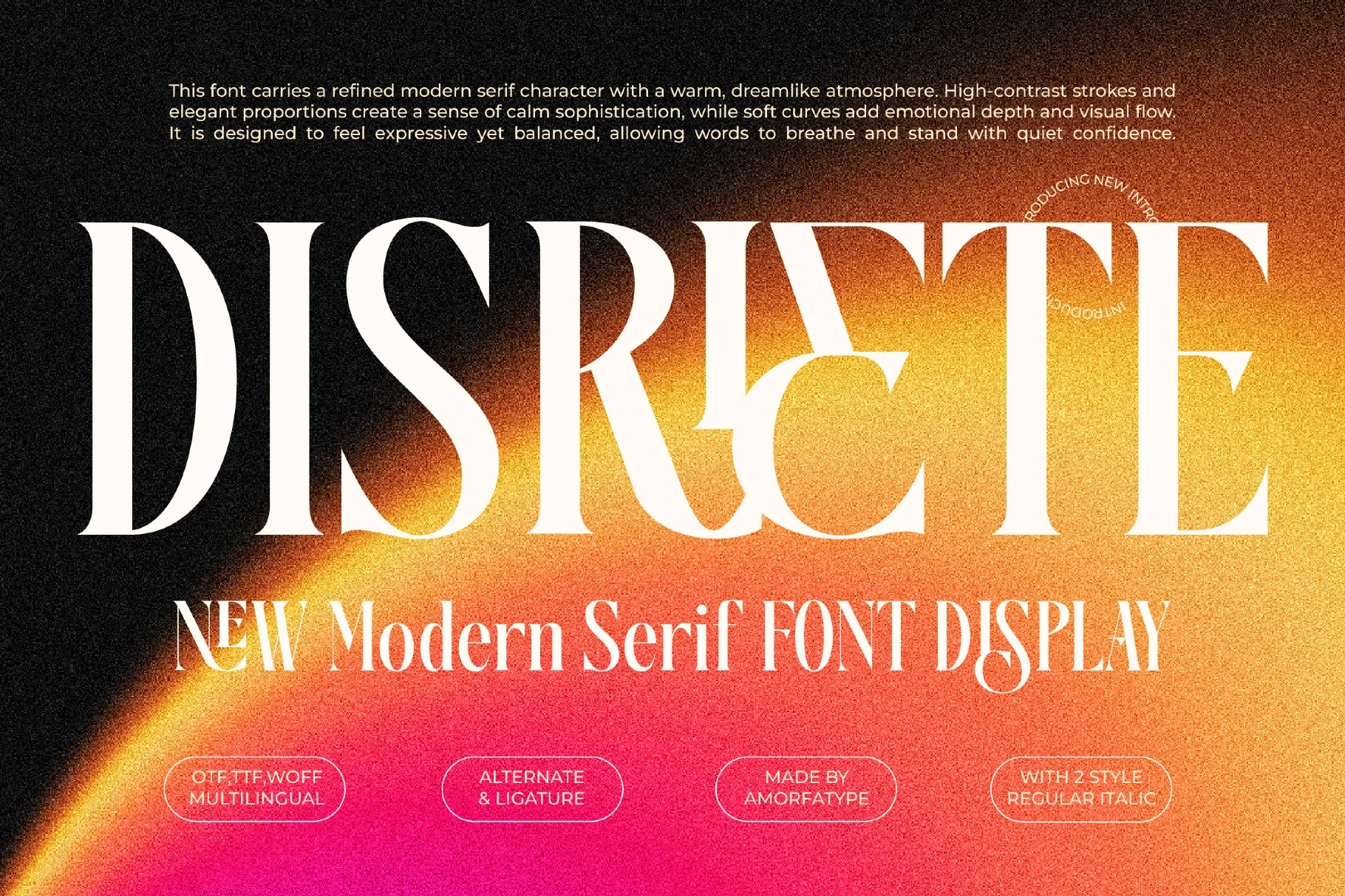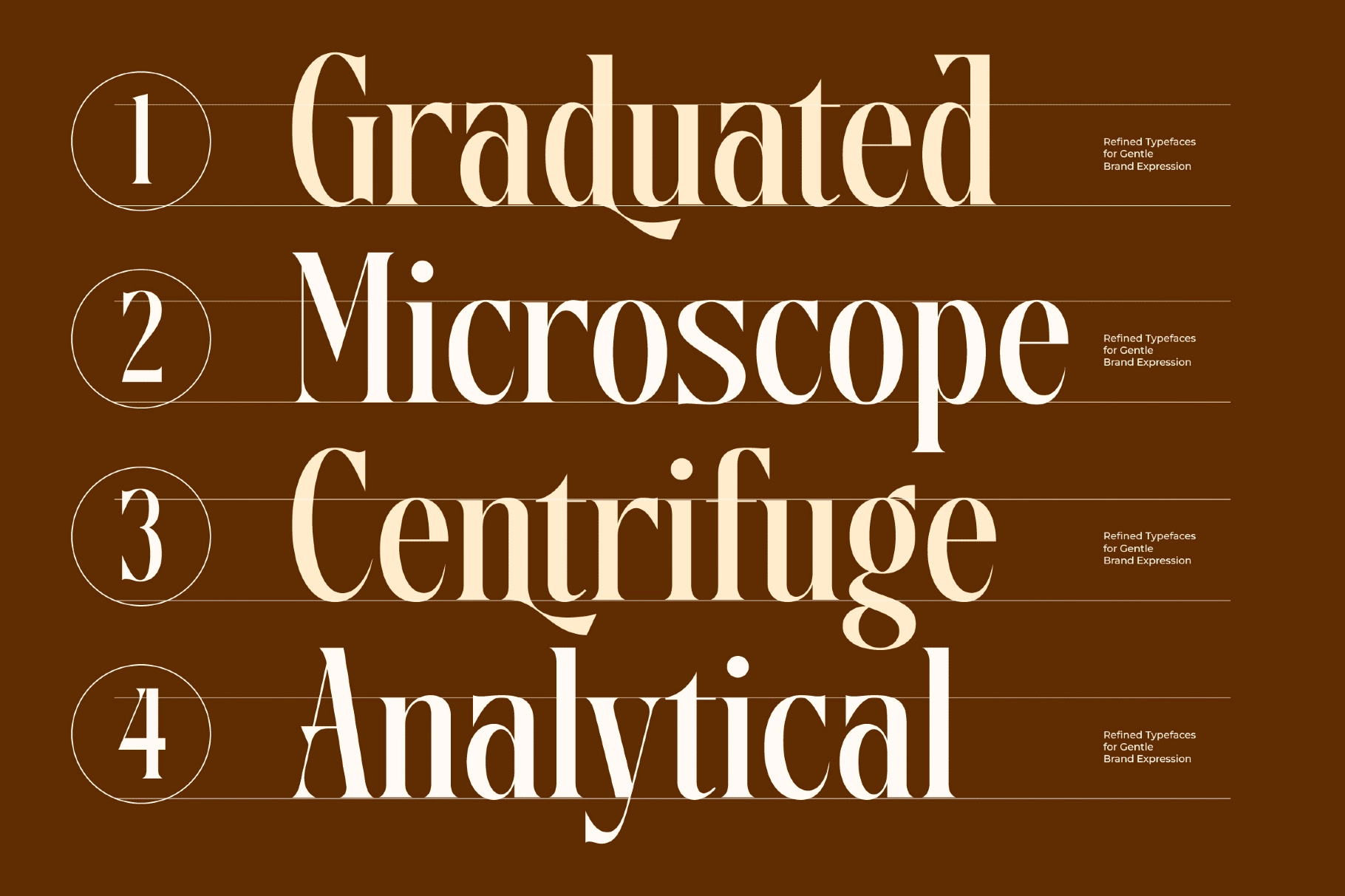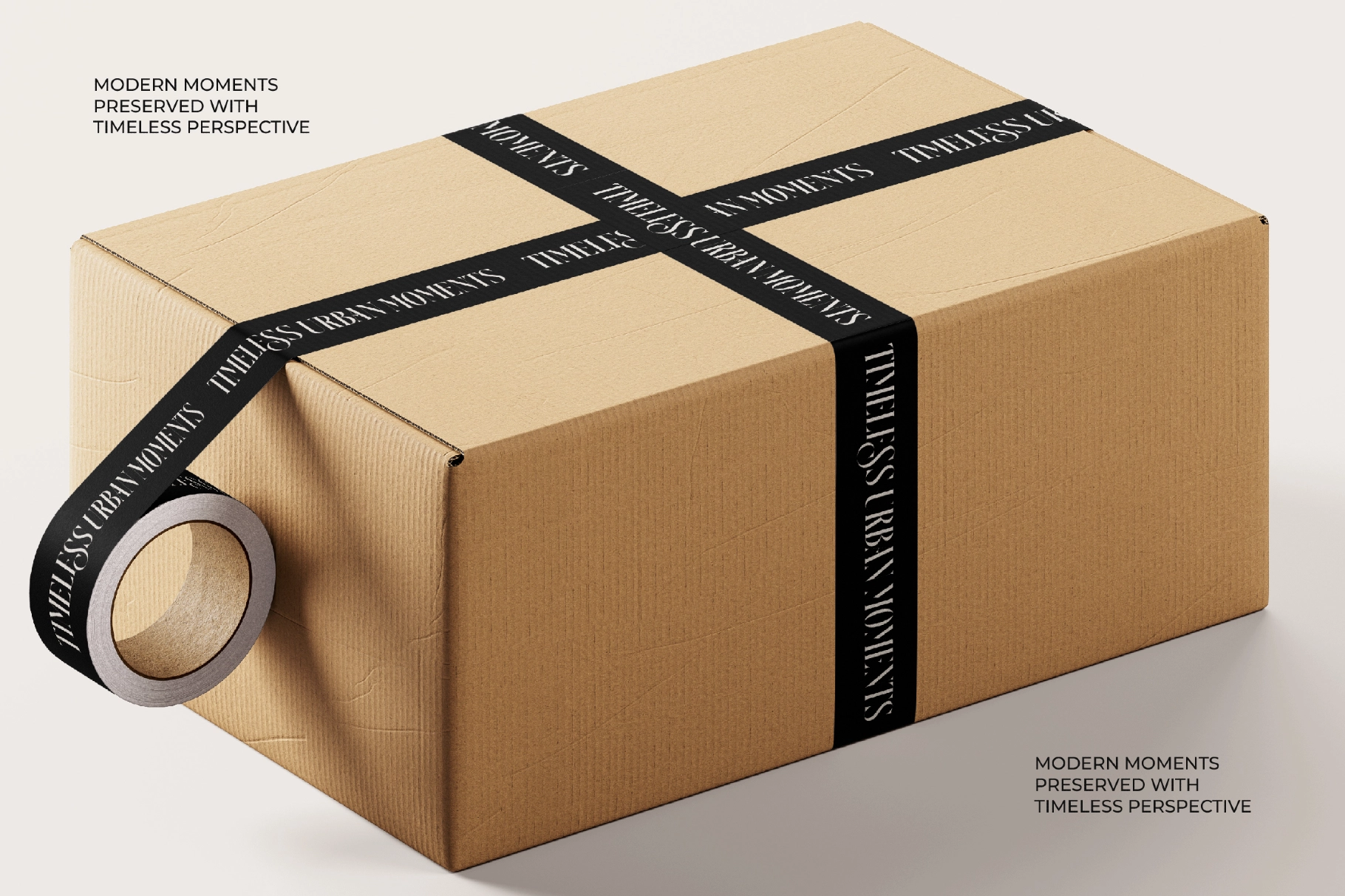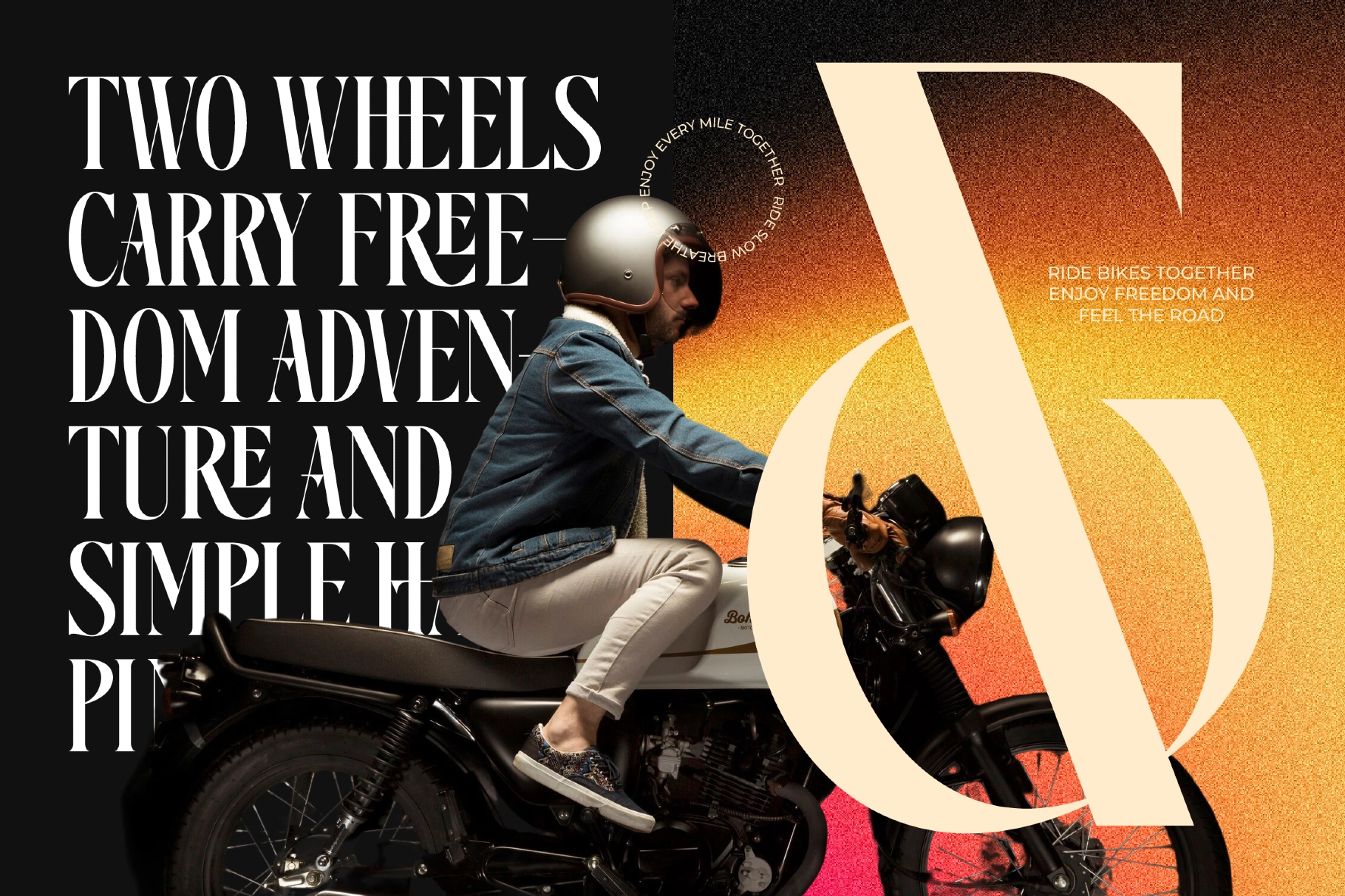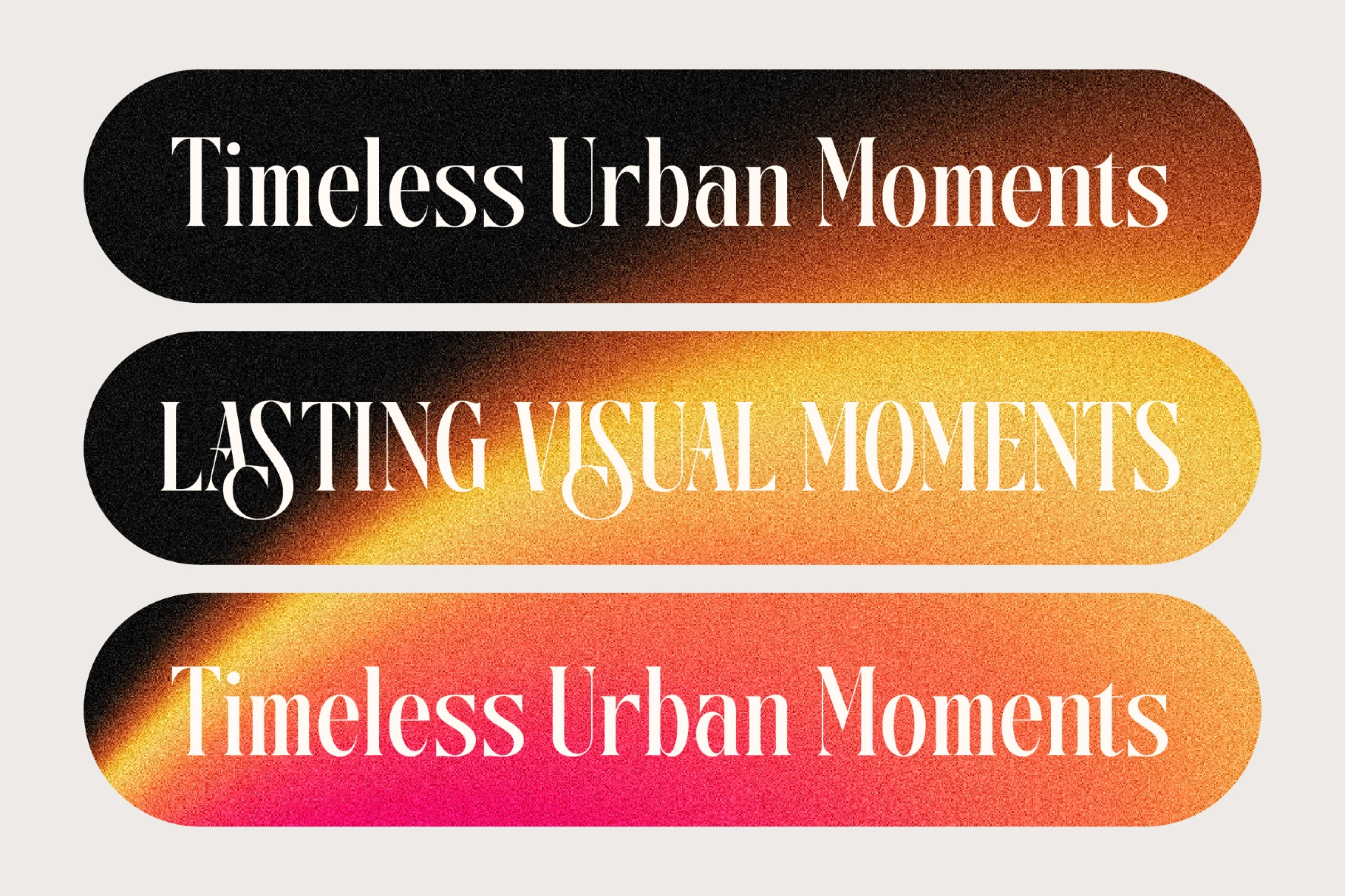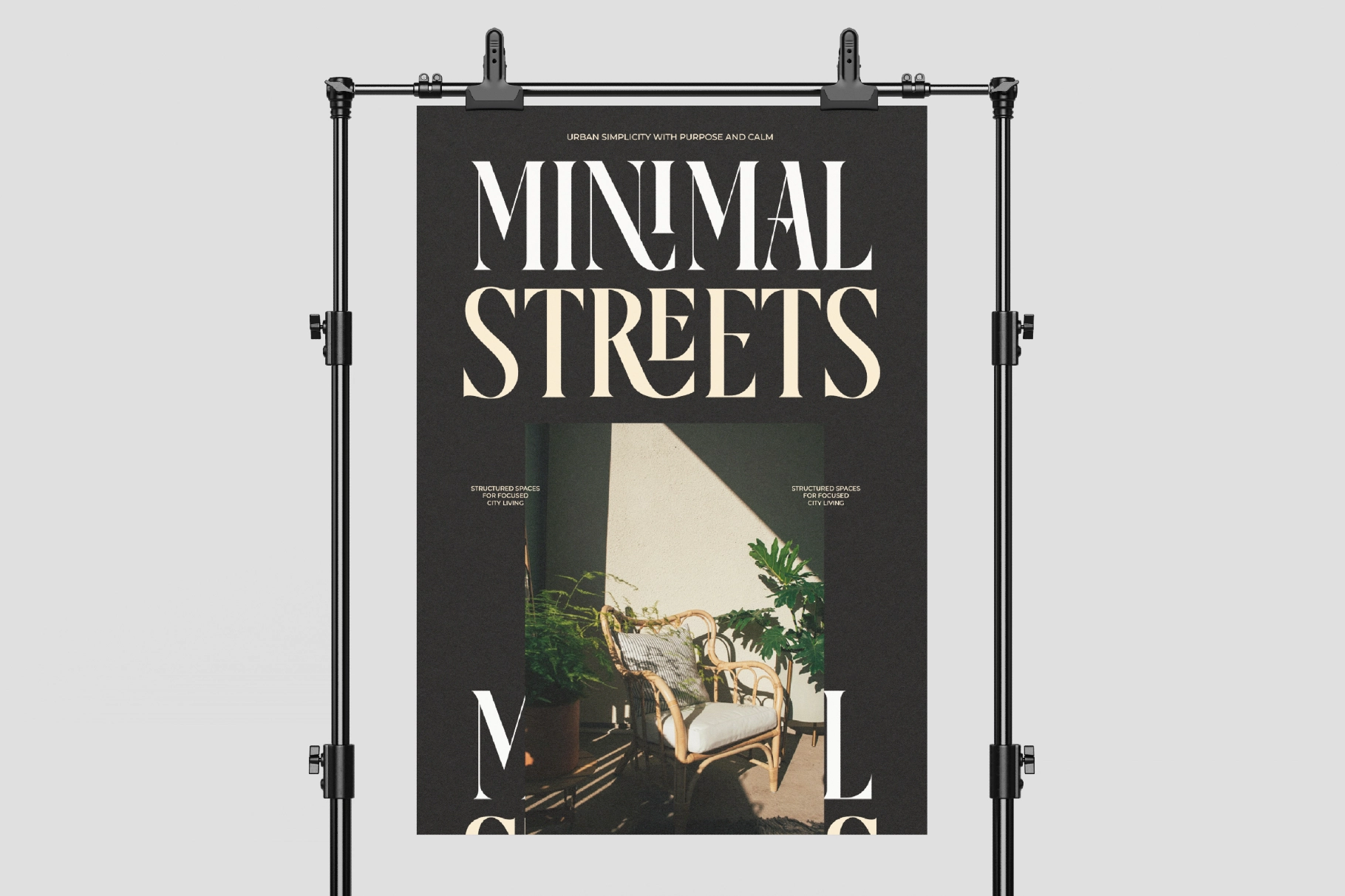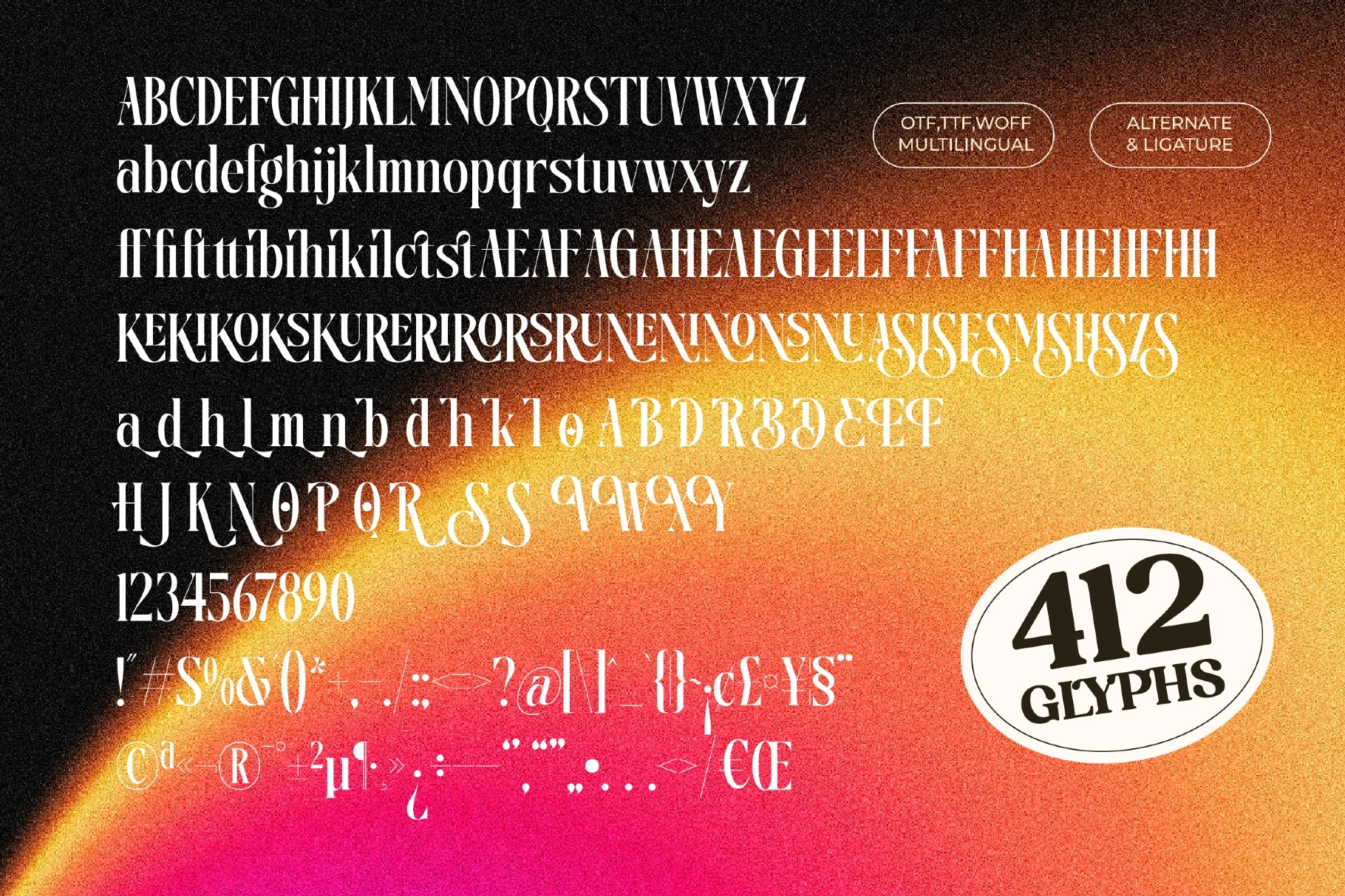
Disriete - Modern Serif Display Font
This serif display font has high-contrast strokes, sharp curves, and a refined editorial character. Its tall proportions and dramatic alternates give headlines a polished presence, while the ligatures add a custom rhythm for typography that needs to look expensive without trying too hard.
Disriete works for luxury branding, magazine covers, fashion campaigns, poster titles, packaging design, restaurant identities, beauty labels, art catalogs, website headers, social media visuals, wedding stationery, and premium merchandise. The regular and italic styles make it useful for both commanding display type and softer supporting text, with enough alternate forms to shape distinct wordmarks and statement layouts.
- 45 Ligatures
- 35 Stylistic Alternates